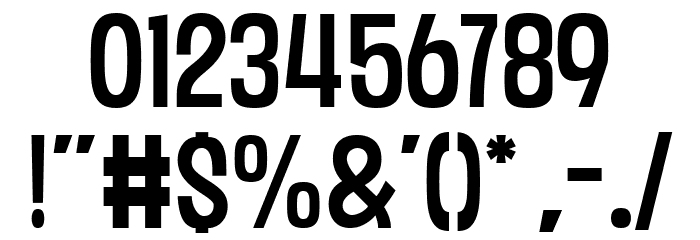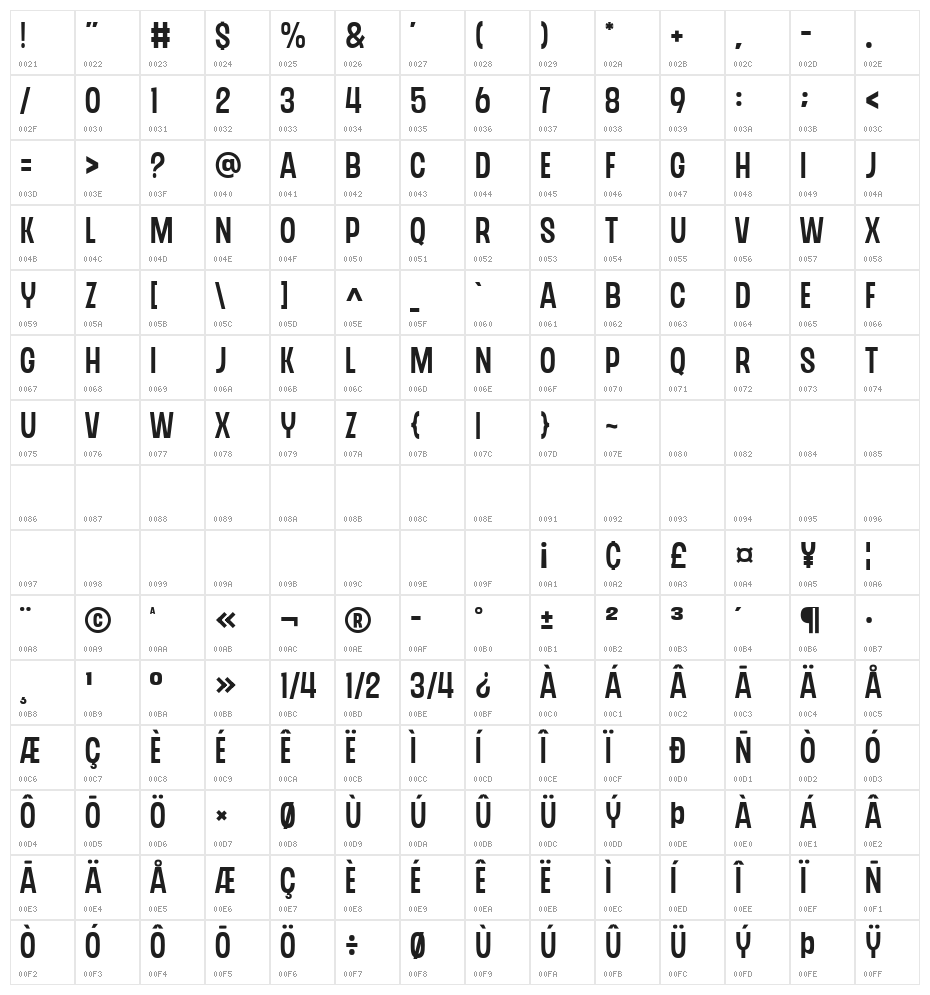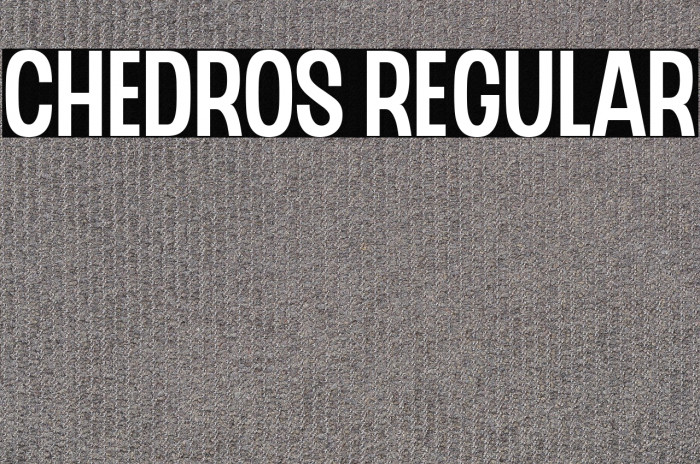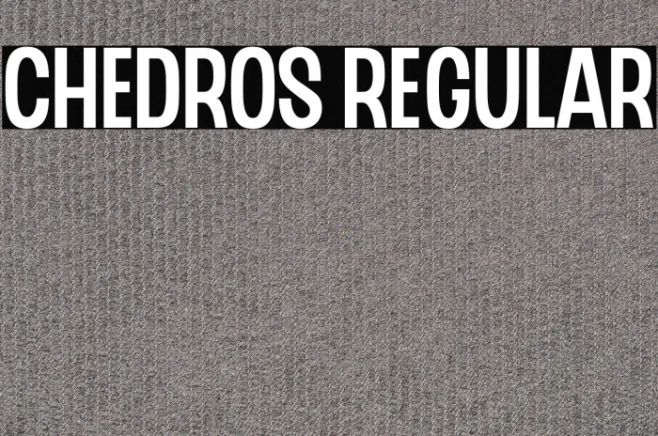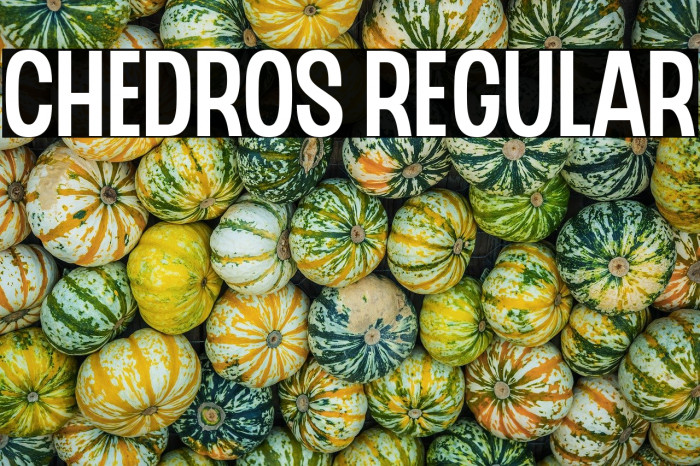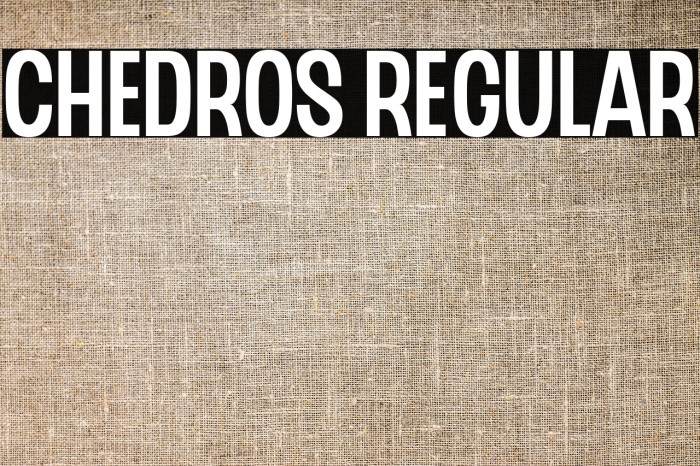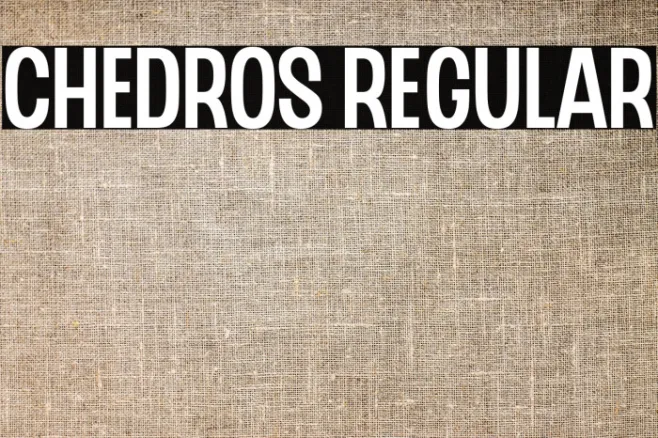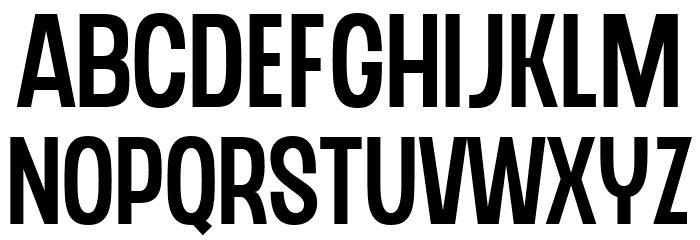
CHEDROS Regular Font
CHEDROS Regular Description
This font features a bold and modern sans-serif style with clean, straight lines and a strong presence. The uppercase and lowercase letters are well-proportioned, offering a consistent and uniform appearance. The numerals are clear and easily distinguishable, making them suitable for various applications. Special characters are included, maintaining the font's cohesive look. The overall design is versatile, making it ideal for both digital and print media. Its boldness ensures readability while adding a contemporary touch to any project.